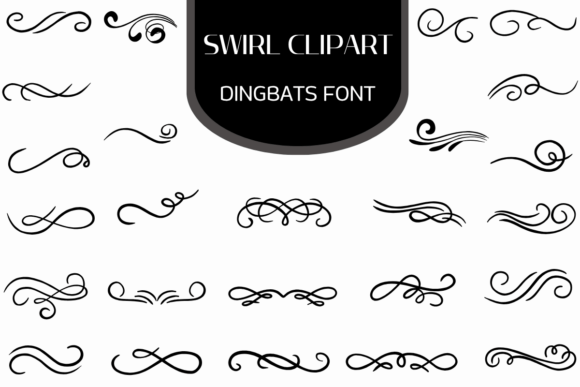
Swirls Line Font
Swirls Line Font Specimen
Swirls Line is a fun dingbat font with cute elements. This font can enhance your creative projects such as wedding invitations, DIY, crafts, decorations, logos, and many other creative ideas.
Swirls Line Glyphs